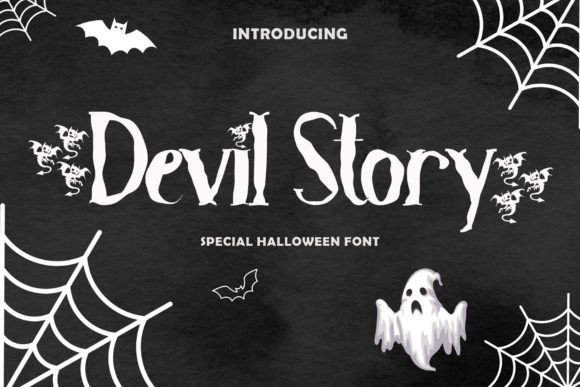
Halloween Typography: Bringing Your Designs to Life with the Devil Story Font
As the sun sets on a crisp autumn evening, and the moon casts an eerie glow, I find myself brainstorming spooky ideas for my next design project. The excitement of creating something unique and captivating is palpable, and I know exactly what I need to bring my vision to life: the right font. Enter the Devil Story Font, a hauntingly beautiful serif font that’s perfect for Halloween party celebrations, invitations, posters, and more.
This enchanting font is PUA encoded, making it a dream to work with. With its devilish twist, the Devil Story Font adds a touch of whimsy and sophistication to any design. Whether you’re a seasoned designer or a beginner, this font is a valuable addition to your toolkit. Its versatility and ease of use make it an ideal choice for creatives looking to craft memorable Halloween designs that will leave a lasting impression.
Devil Story Font Key Features
- Font Family: Devil Story is a unique, hand-drawn font that offers a range of expressions and emotions.
- Characteristics: The font features intricate details, expressive lines, and a mix of modern and vintage elements, giving it a distinctive look.
Devil Story Font Review
Overall, I’m impressed with the Devil Story Font’s unique style and flair. The font’s bold and edgy design makes it perfect for adding a touch of darkness and mystery to any project ✨.
The font’s character set is comprehensive, covering a wide range of languages and providing various style options, including regular, bold, italic, and bold-italic. The font also includes a range of special characters, including punctuation and symbols ✨.
However, there are a few limitations to consider ⚠️:
- Limited support for older operating systems, which may result in compatibility issues.
- The font’s bold and italic styles may not be as crisp and clear as the regular style, particularly at smaller font sizes.
- The font’s unique design may not be suitable for all projects, particularly those requiring a more traditional or formal look.
Overall, I’d give the Devil Story Font 4 out of 5 stars. While it’s not perfect, its unique style and comprehensive character set make it a great choice for projects requiring a bold and edgy look ✨.
The Devil Story Font is ideal for creating bold, attention-grabbing text for horror-themed projects, such as movie posters, book covers, or social media posts.
For maximum effect, use the font in conjunction with dark colors and eerie backgrounds.